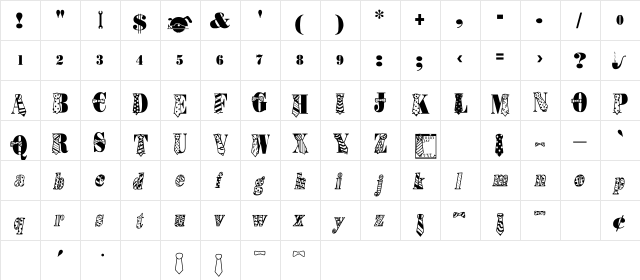
Fathers Day Regular
Design Context for Fathers Day Typeface
Fathers Day is a composed and adaptable typeface that performs quietly and consistently across a wide range of design contexts.